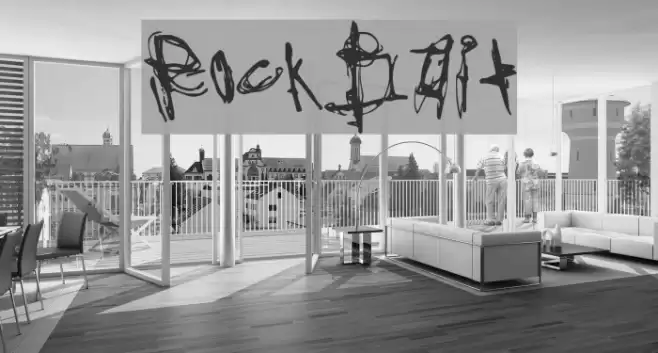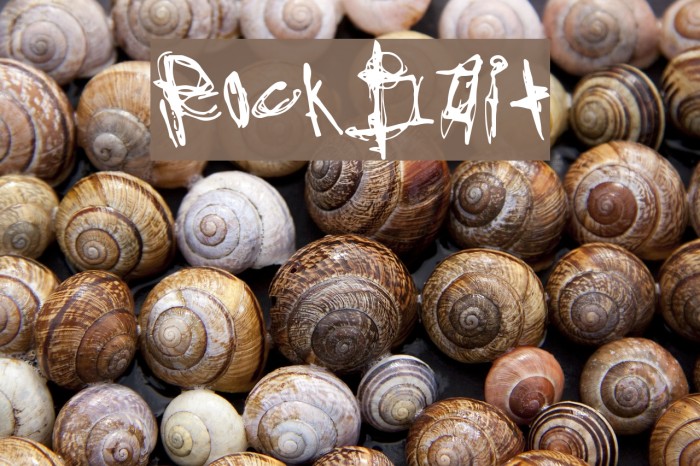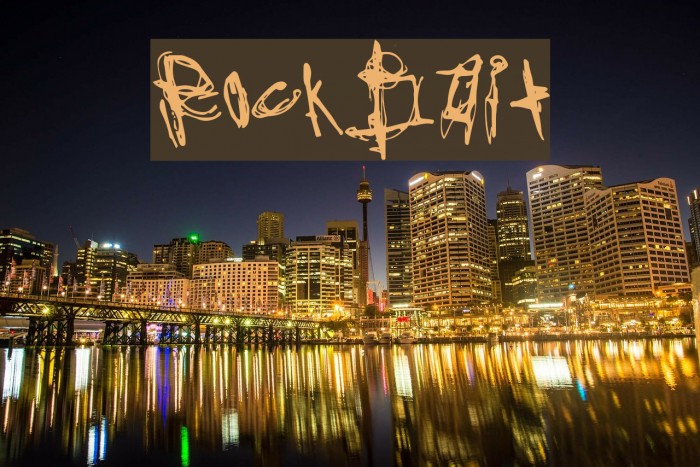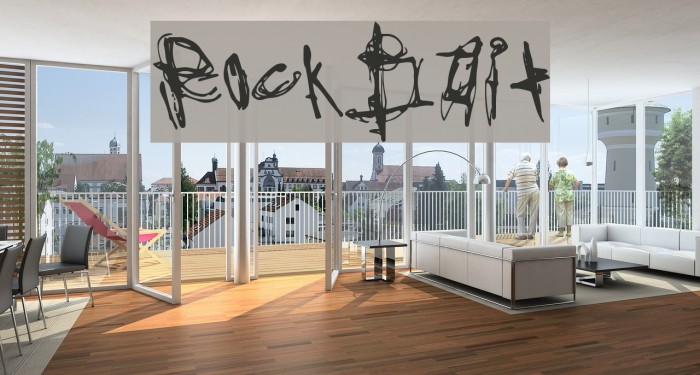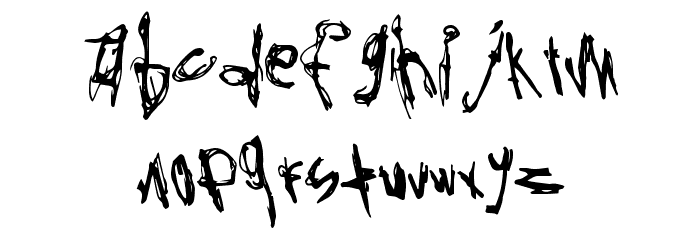
RockBait Font
RockBait Description
This font exhibits a highly decorative and chaotic style, reminiscent of graffiti or hand-drawn sketches. The characters are irregular and jagged, with a sense of movement and energy. The strokes are uneven, creating a raw and edgy appearance. This font is designed to capture attention with its bold and unconventional look, making it suitable for projects that require a rebellious or artistic flair. The uppercase and lowercase letters maintain a consistent style, while the numbers and special characters follow the same erratic design, ensuring a cohesive visual impact.
A chaotic, graffiti-inspired font with jagged, energetic strokes from Uncategorized fonts.